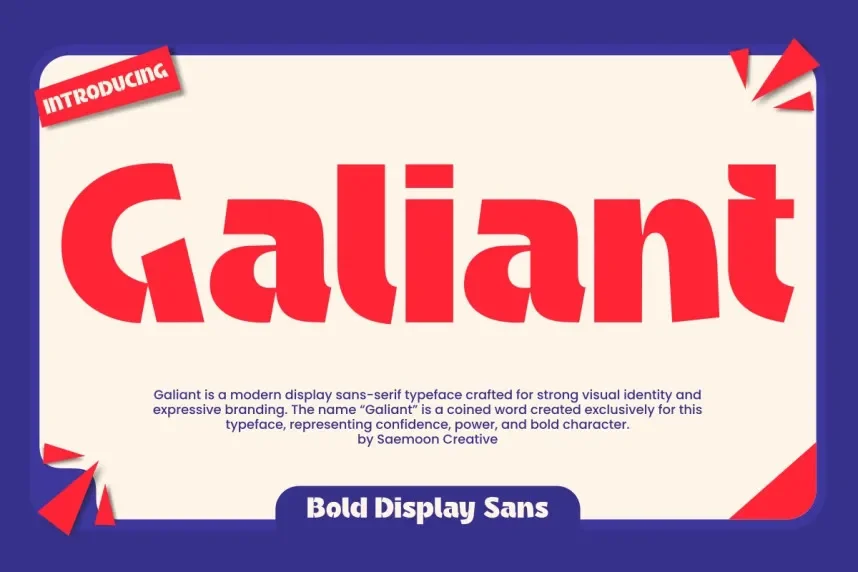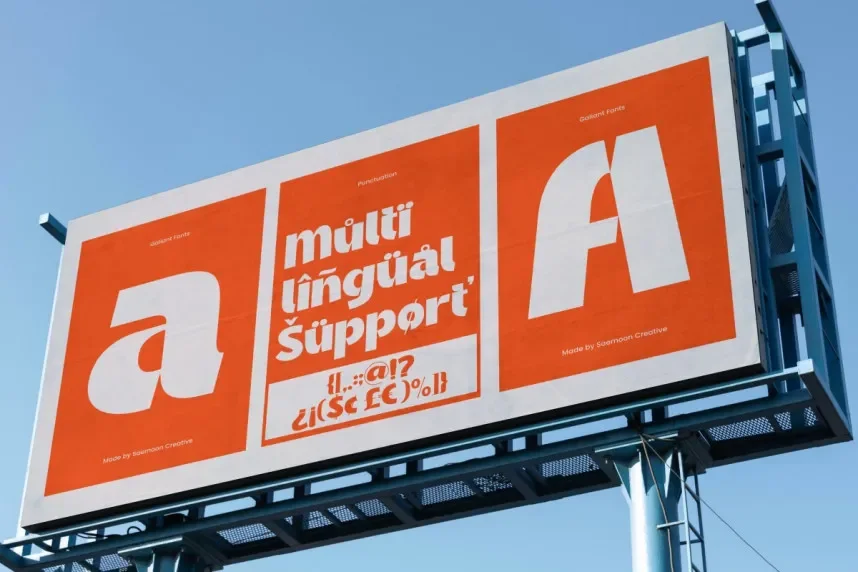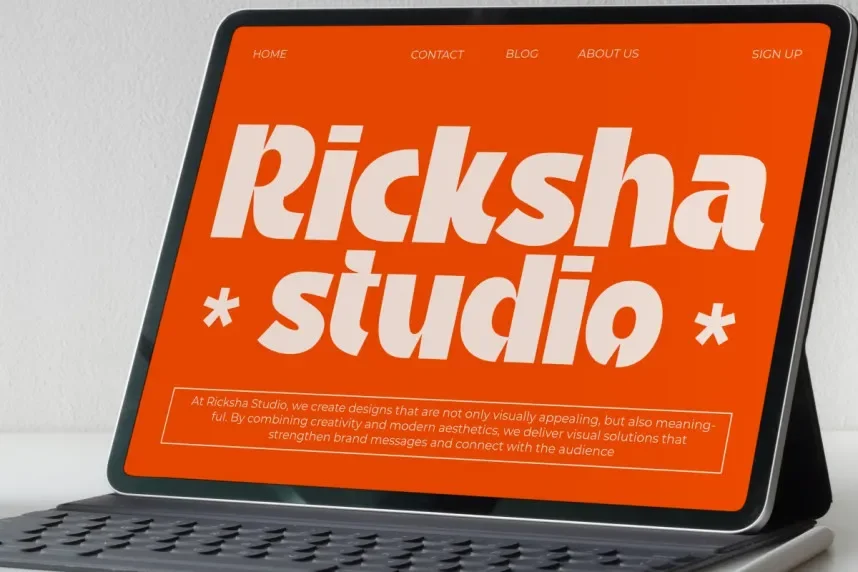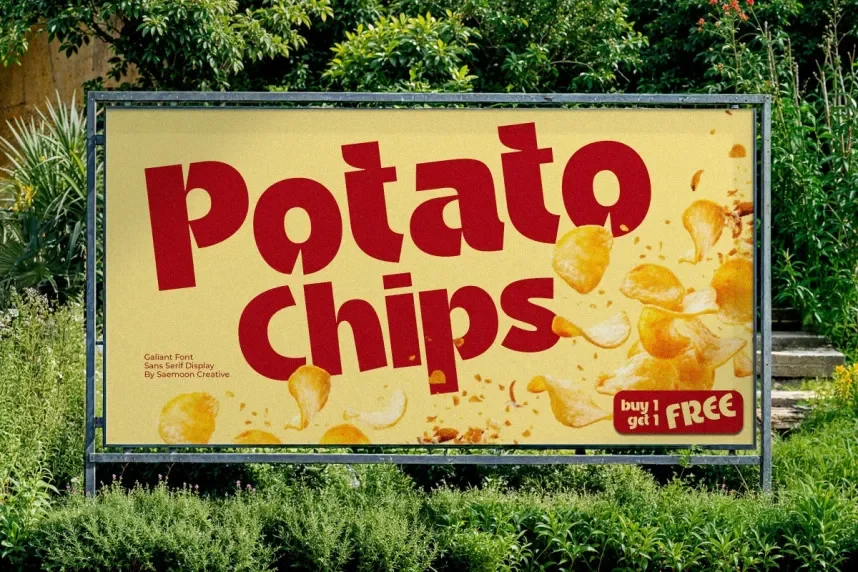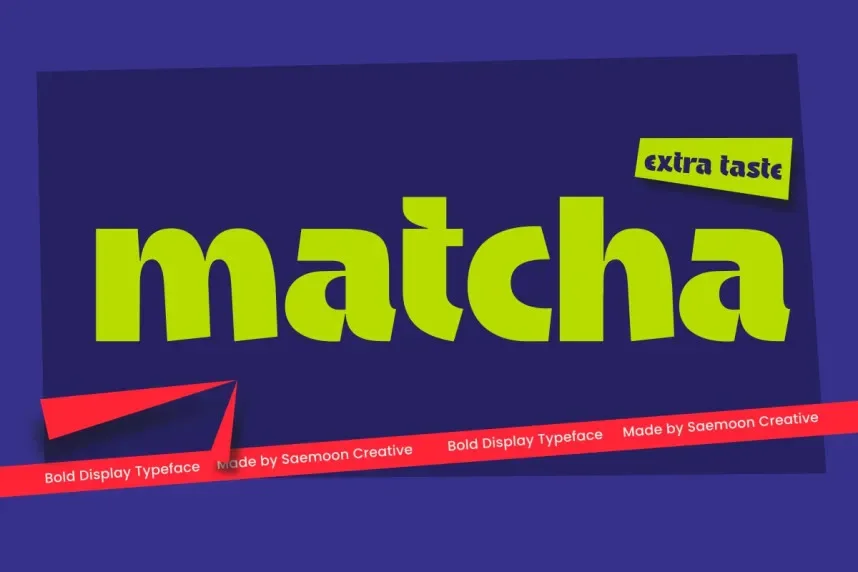
Galiant Font is a sans-serif typeface designed to solve consistency issues in bold branding and headline design. Designers working on logos, UI headings, and promotional materials often require a font that delivers strength without sacrificing letter clarity.
Galiant features thick strokes, balanced proportions, and clear character shapes. The letterforms are wide enough for legibility while remaining compact for efficient space use. Low stroke contrast and clean terminals support digital and print readability, especially at medium to large sizes.